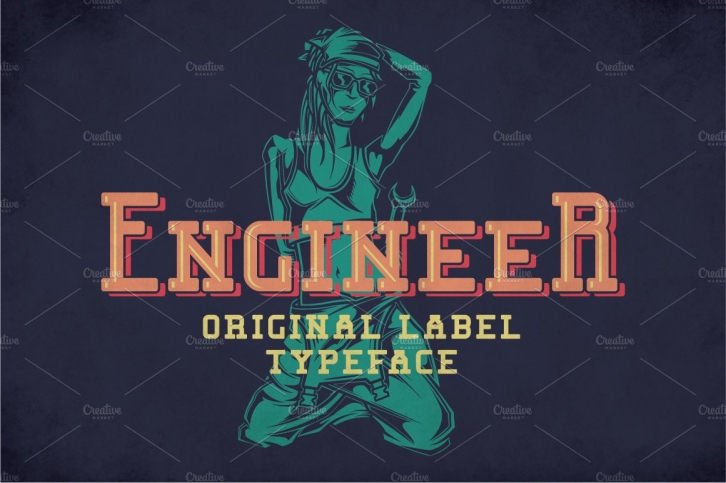
Introducing a original label typeface named "Engineer". It's made in fresh and modern label style. Typeface is good viewed on any labels design.
- You can mix effects (look at 4-th screenshot)